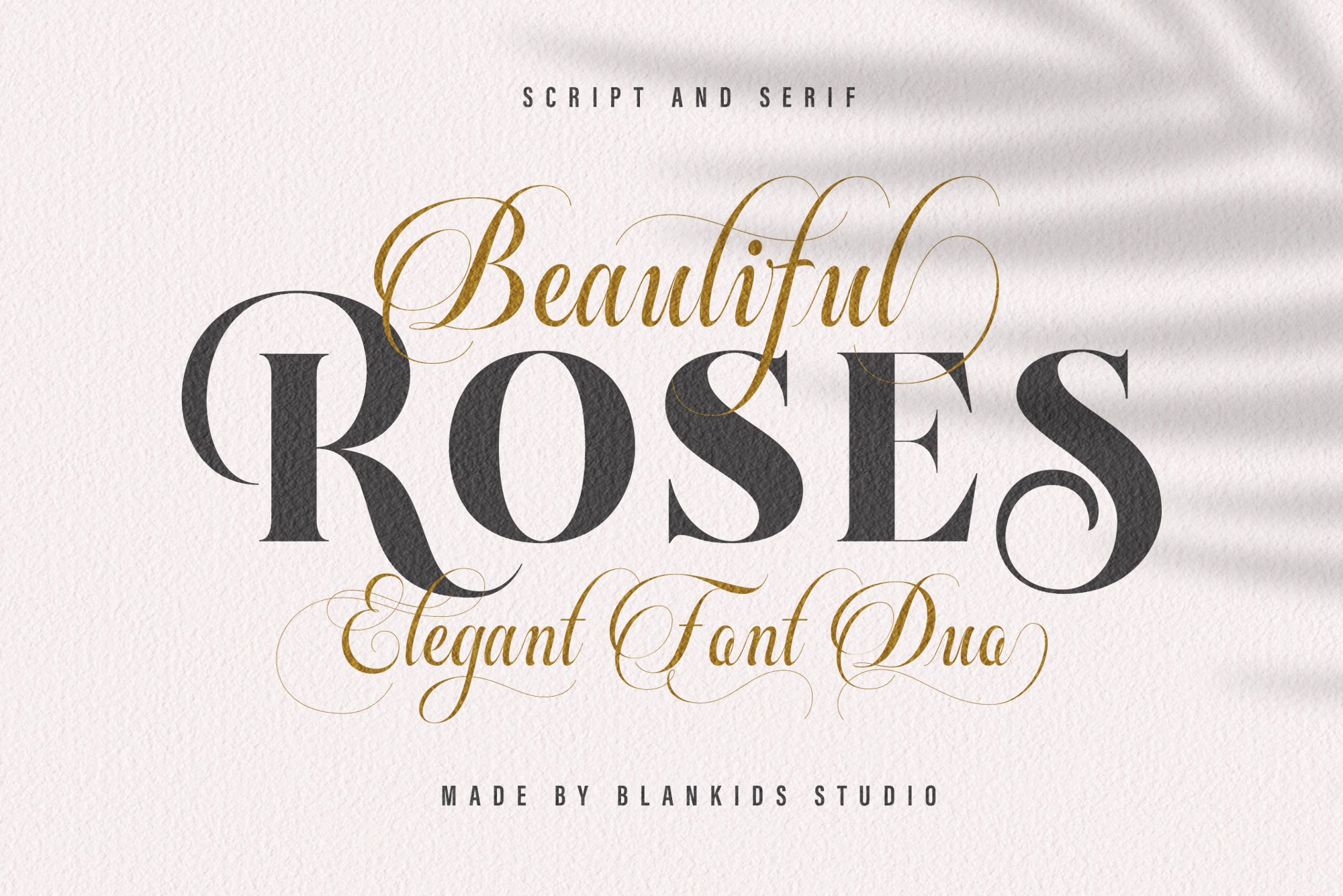
Beautiful Roses - Font Duo
Introducing a new duo font serif and script called Beautiful Roses. Beautiful Roses good for logotype, poster, badge, wedding invitation, book cover, tshirt design, packaging and any more.
MULTILINGUAL ACCENT :
ŽžŠŒšŸÀÁÂÃÄÅÆÇÈÉÊËÌÍÎÏÐÑÒÓÔÕÖØÙÚÛÜÝßàáâãäåæçèéêëìíîïðñòóôõöøùúûüýÿ ( Beautiful Roses Script and Serif )
- Alternative character, stylistic set 1-14 ( Beautiful Roses Script )
- Ligature ( Beautiful Roses Script )
- Dictionary ligature for do og oc oo co ki ri ke ko re ro ra ka ku ru lu la lo ( Beautiful Roses Serif )
- Alternative character ( Beautiful Roses Serif )
I love the font, the only thing I don't love, is the lower case "O", because it looks like a lower case "A". That is the reason I removed 1 star. It would be perfect, if the lower case O looked like an O.